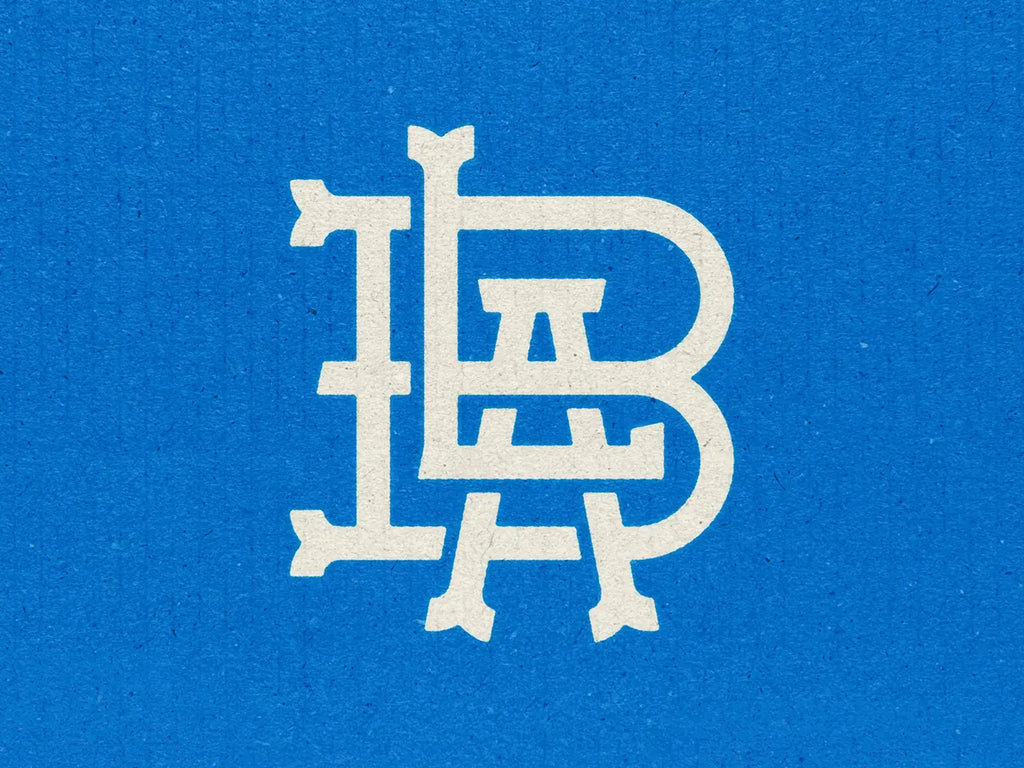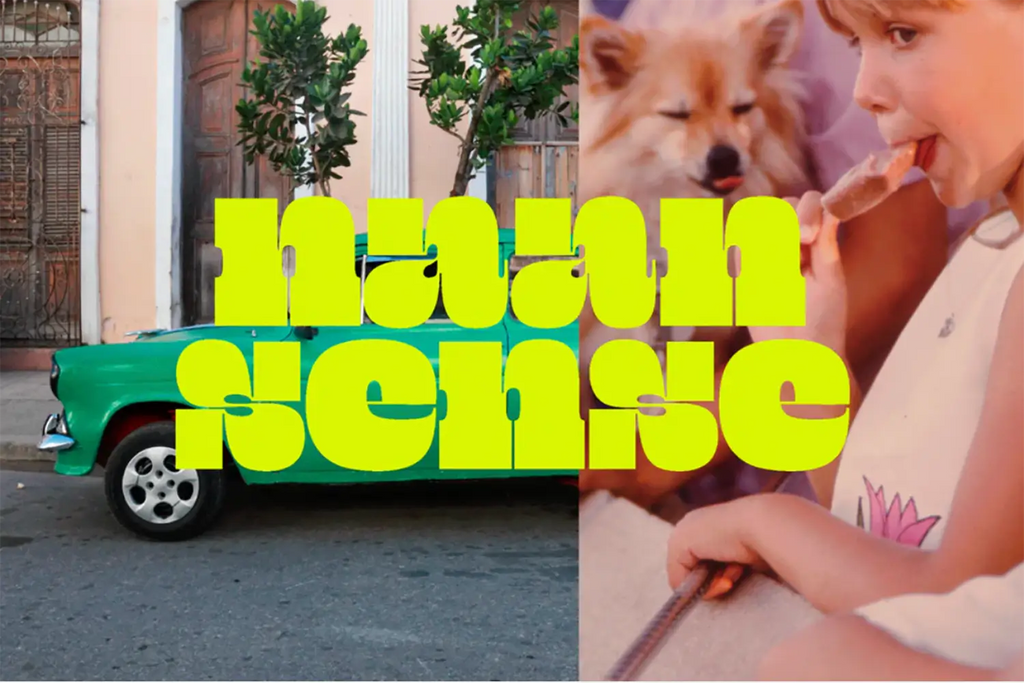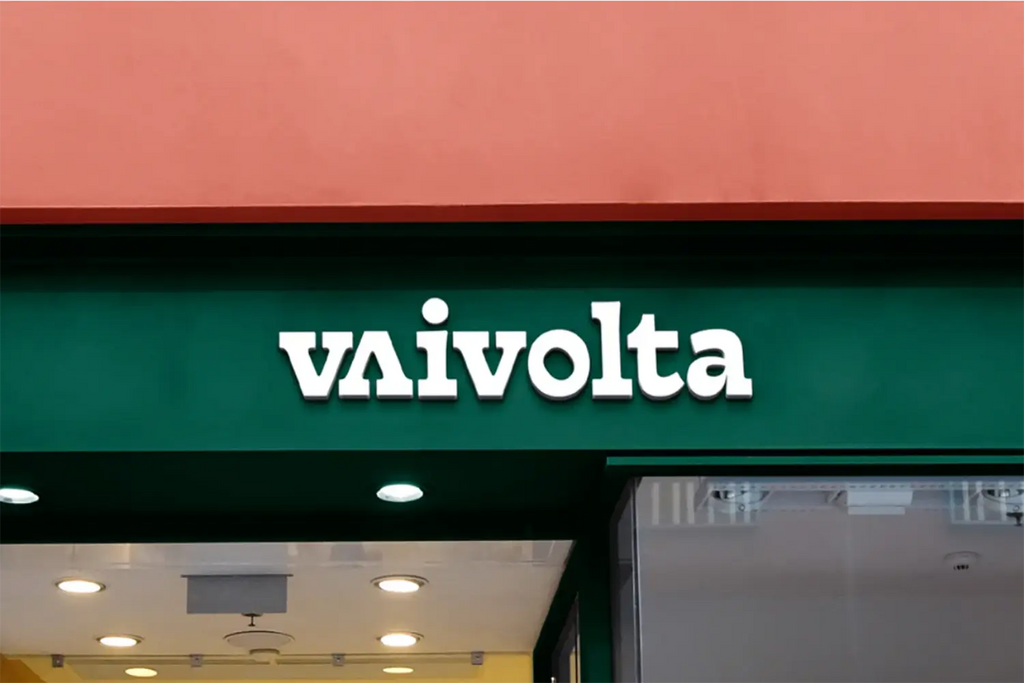
Discovering The Benefits of Slab Serif Fonts For Logo Designs
Typography has a powerful influence on how people perceive a brand, often before they read a single word about the company itself. Among the many type styles available to designers, slab serif fonts occupy a unique position. Their bold strokes, prominent serifs, and sturdy appearance make them instantly recognizable while giving logos a sense of confidence and character. When exploring slab serif fonts logo design, one of the biggest advantages is the ability to communicate strength without sacrificing readability. These typefaces can feel professional, approachable, dependable, and memorable at the same time. That combination makes them useful for a wide range of industries and branding goals. Rather than examining every aspect of logo typography, this article focuses specifically on the benefits slab serif fonts bring to logo design and why they continue to be a valuable choice for brands seeking a distinctive visual identity.
Why Slab Serif Fonts Feel Strong And Dependable
The Visual Weight Of Thick Serifs
One of the defining characteristics of slab serif fonts is their substantial structure. Unlike delicate serif styles that feature thin transitions and refined details, slab serifs use thick, block-like serifs that create a more substantial appearance. This visual weight naturally attracts attention and gives logos a sense of permanence. People often associate heavier forms with strength, durability, and reliability. A logo set in a slab serif font can therefore communicate confidence before any supporting message is introduced. The geometric balance commonly found in slab serif typefaces also contributes to their stability. Letters often appear grounded and secure, helping brands project consistency and professionalism.
Building Trust Through Typography
Trust is a critical component of branding. Customers want to feel confident about the products, services, or experiences they choose. Typography can support that trust-building process by reinforcing the right brand personality. Slab serif fonts often strike a balance between authority and accessibility. They appear serious enough to inspire confidence while remaining friendly enough to avoid feeling overly formal. This balance can be especially useful for brands that want to appear dependable without seeming distant or intimidating. In slab serif fonts logo design, this dependable character helps establish a visual foundation that audiences can quickly understand and remember.
How Slab Serif Fonts Improve Logo Recognition
Distinctive Shapes That Stand Out
Memorable logos often rely on recognizable visual characteristics. Slab serif fonts naturally provide distinctive shapes thanks to their bold serifs and strong letter structures. These features help logos stand apart from typography that may appear more generic or minimal. The prominent details found in slab serif letters create visual landmarks within a wordmark. Even when viewers only glance at a logo briefly, those unique characteristics can help them recognize and recall it later. Because branding often competes for attention across crowded digital and physical environments, distinctive typography becomes a valuable asset.
Creating A Lasting Brand Impression
Recognition alone is not enough. Effective logos also contribute to long-term brand recall. When typography possesses a clear personality, audiences are more likely to remember it after repeated exposure. Slab serif fonts often convey a sense of confidence and authenticity that leaves a lasting impression. Their appearance feels intentional rather than temporary, helping logos maintain relevance across different applications and marketing materials. For businesses seeking a memorable visual identity, slab serif fonts logo design offers an opportunity to combine clarity with character. The result is a logo that feels both recognizable and enduring.
Industries That Benefit Most From Slab Serif Fonts Logo Design
Heritage And Craft-Focused Brands
Brands that emphasize tradition, craftsmanship, and quality often benefit from slab serif typography. The structured appearance of these fonts can reinforce messages related to expertise, experience, and attention to detail. Artisan makers, specialty retailers, furniture brands, coffee roasters, and handcrafted product companies frequently use typography that reflects their commitment to quality. Slab serifs help communicate those values without appearing overly decorative. Their strong forms suggest authenticity and care, qualities that many consumers actively seek when choosing products or services.
Outdoor, Industrial, And Construction Businesses
Few font styles communicate toughness as effectively as slab serifs. Their substantial structure naturally aligns with industries focused on durability and performance. Construction companies, equipment manufacturers, outdoor brands, and industrial service providers often need logos that feel reliable and capable. Slab serif typography supports these goals by visually reinforcing strength and resilience. Instead of relying solely on imagery to communicate these traits, the typography itself becomes part of the message.
Modern Brands Seeking Character
While slab serif fonts have historical roots, they are not limited to traditional branding. Many contemporary companies use modern slab serif typefaces to introduce personality while maintaining clarity. Clean spacing, simplified forms, and thoughtful logo design techniques allow slab serifs to feel current and relevant. Brands that want more character than a standard sans-serif font can often achieve that balance through a carefully selected slab serif style. This flexibility makes slab serif fonts logo design useful for both established organizations and newer businesses developing a distinctive identity.
The Balance Between Tradition And Modern Appeal
Preserving A Sense Of History
Many slab serif fonts carry subtle references to traditional typography, craftsmanship, and established institutions. These associations can help brands communicate heritage without appearing outdated. For companies with a long history or a strong commitment to quality, this connection can strengthen brand storytelling. Typography becomes a visual reminder of reliability, expertise, and continuity. Importantly, these historical influences do not require logos to look old-fashioned. Instead, they provide depth and meaning that support the overall brand message.